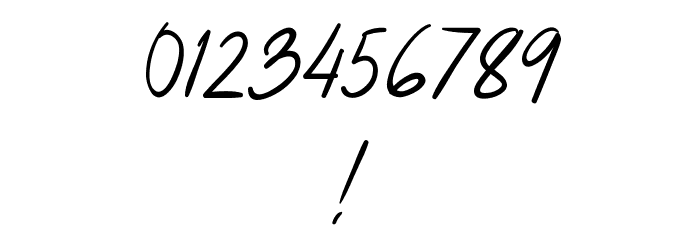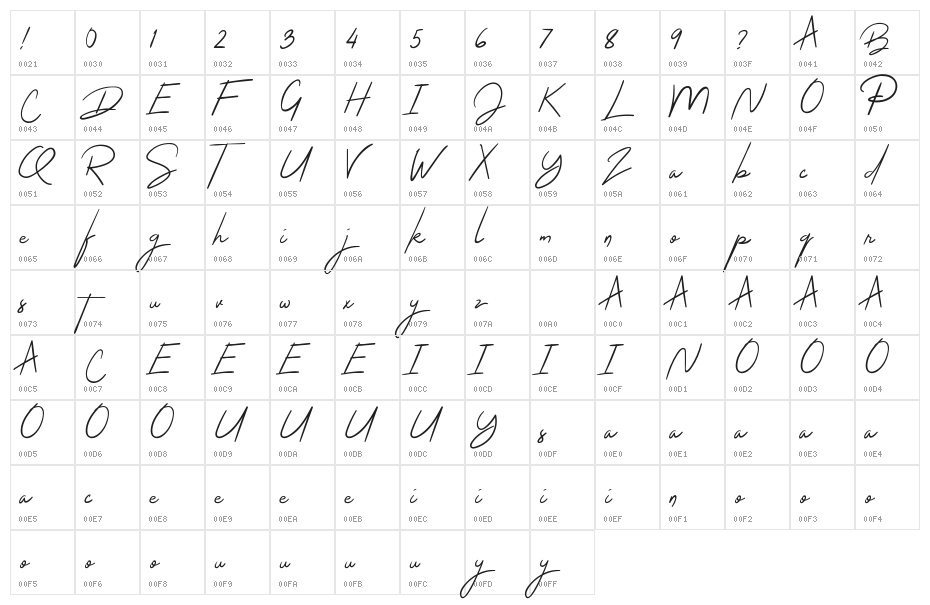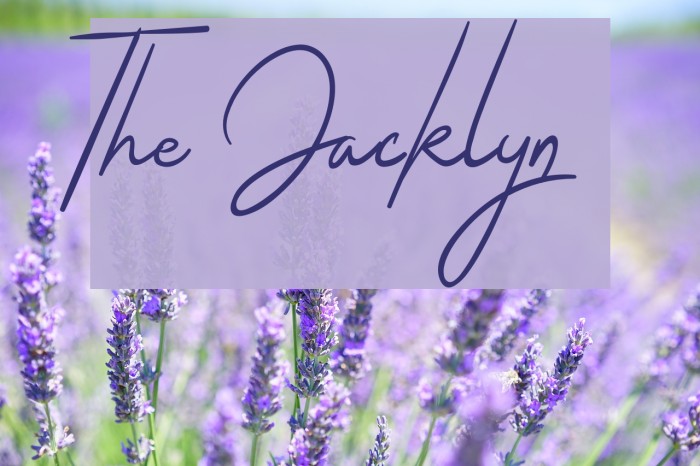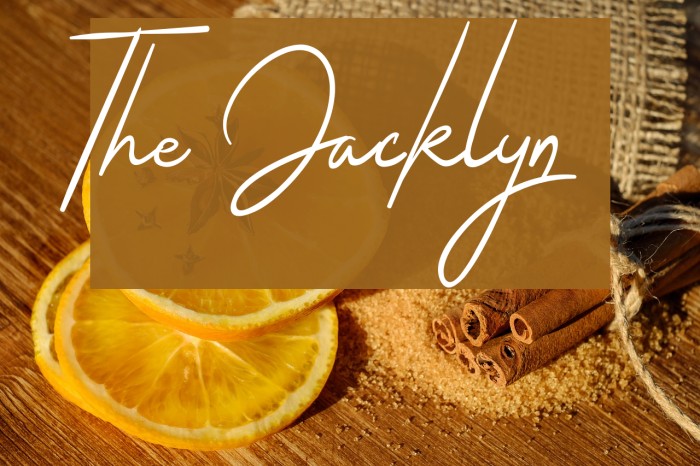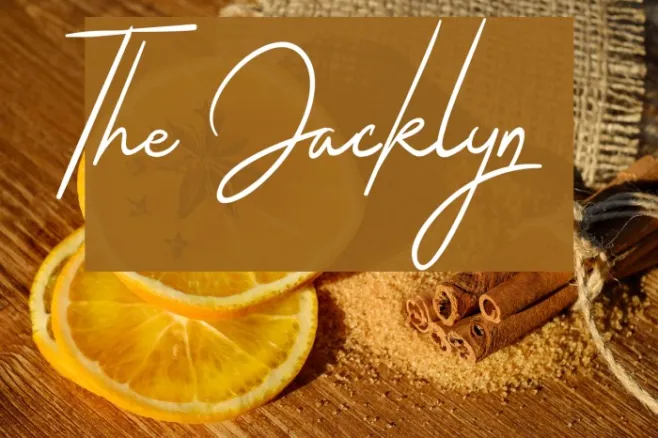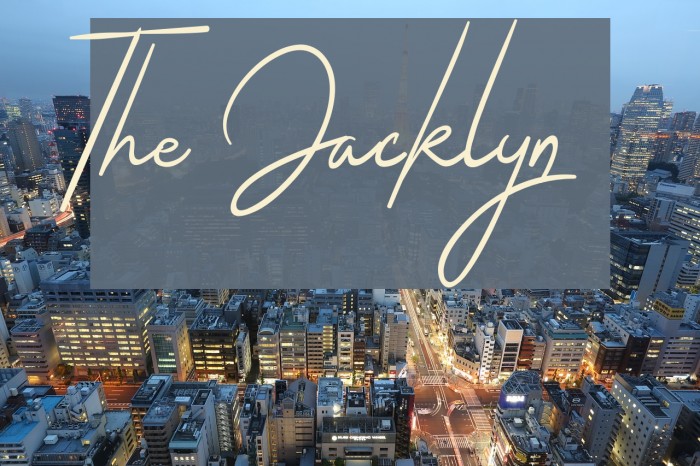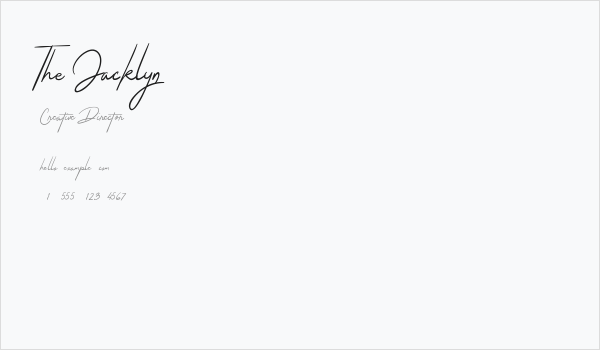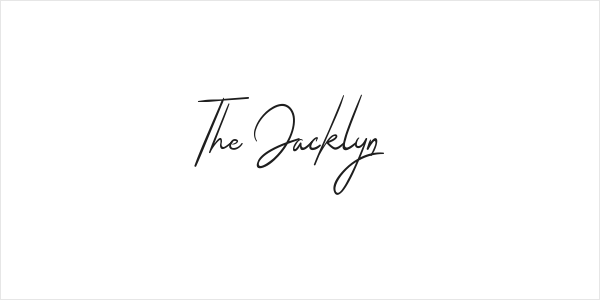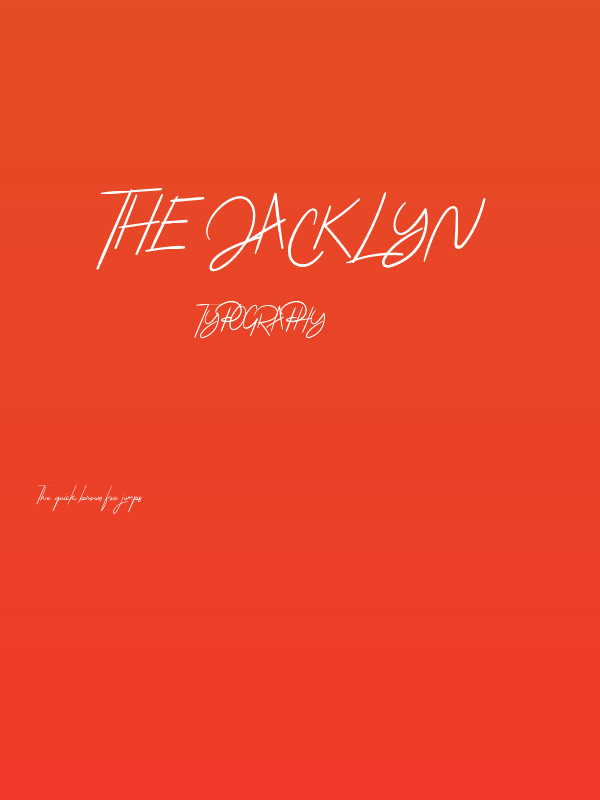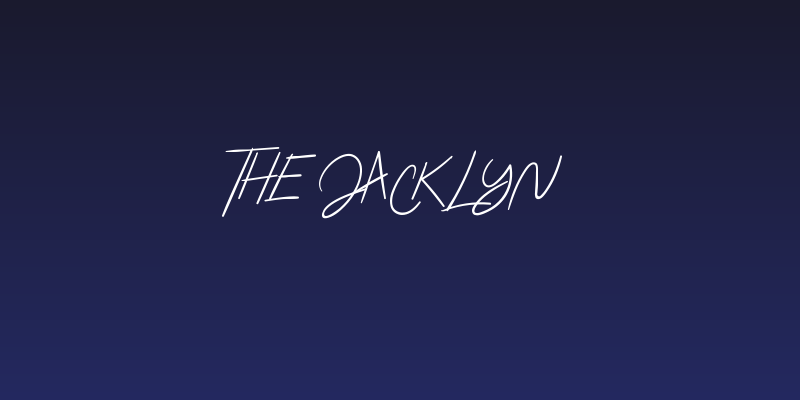
The Jacklyn Font
The Jacklyn Description
This font exudes a dynamic and expressive style, characterized by its fluid, handwritten appearance. The letters are connected with sweeping strokes, giving it a sense of motion and elegance. The uppercase letters are bold and prominent, while the lowercase letters maintain a consistent flow, enhancing readability. The numerals are distinct yet harmonize with the overall script style. This font's unique flair is further accentuated by its special characters, which are crafted with the same attention to detail, making it suitable for creative and artistic projects.
| Proposed Projects | Ideal for wedding invitations, personal branding, artistic posters, and creative logos. |